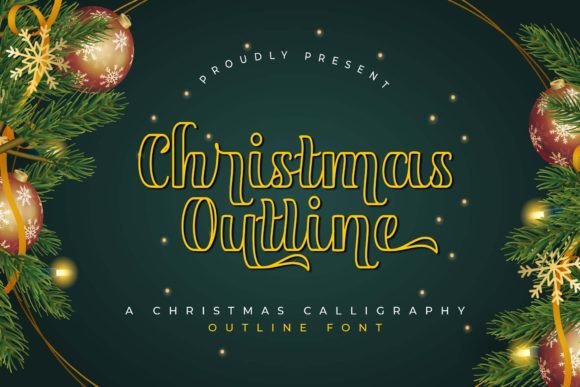
Unleash the spirited charm of Christmas Outline, a remarkable script font teeming with the holiday's magic. Every curve and stroke is meticulously crafted to capture the essence of the Christmas season, bringing a warm and enchanting touch to your creative endeavors.
This font is not merely a collection of characters; it's a gateway to a realm where imagination and artistry intertwine. Its home-building theme makes it the perfect companion for crafting heartfelt designs, evoking a sense of nostalgia and comfort.
Imagine adorning your Christmas cards with Christmas Outline's elegant letters, each word radiating warmth and cheer. Or, let it add a personal touch to your holiday invitations, making each recipient feel the festive spirit. The possibilities are endless, limited only by your imagination.
With Christmas Outline, you'll discover a font that speaks to the heart, evoking memories and creating new traditions. Its versatility extends to a wide range of applications, including branding, packaging, and even website design.
Embrace the joyous spirit of Christmas with Christmas Outline, and turn your creative visions into unforgettable realities. It's more than just a font; it's a celebration of the season's magic, waiting to be explored and cherished.